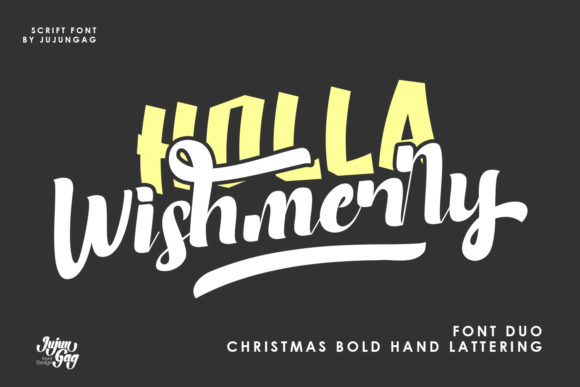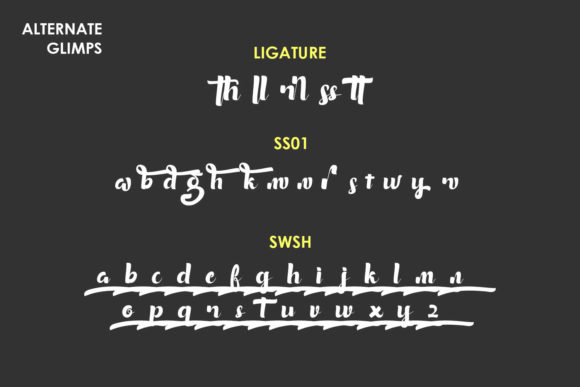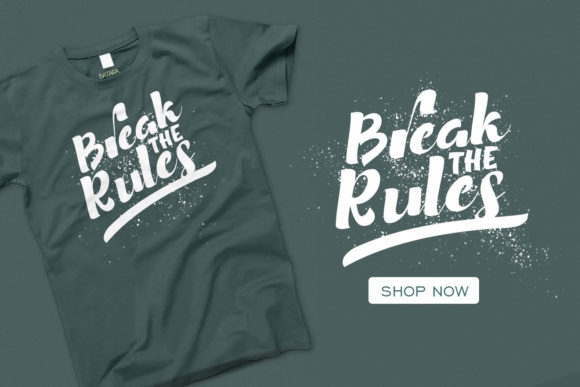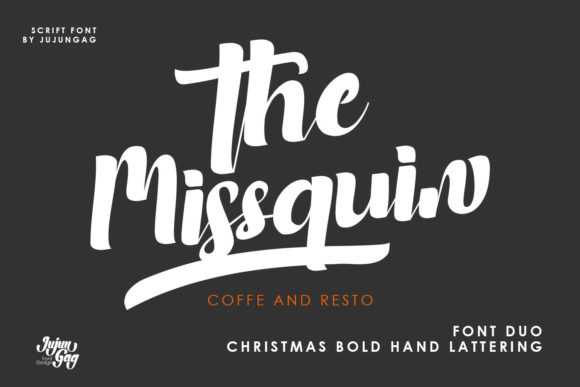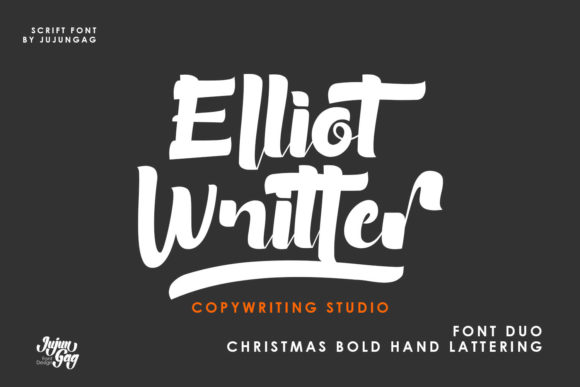
About Holla Wishmerry Font
Holla Wishmerry is an incredibly stylish and urban styled duo font (script and display). Incredibly versatile, this font fits a wide pool of designs, elevating them to the highest levels. Add this font to your favorite creative ideas and notice how it makes them come alive!